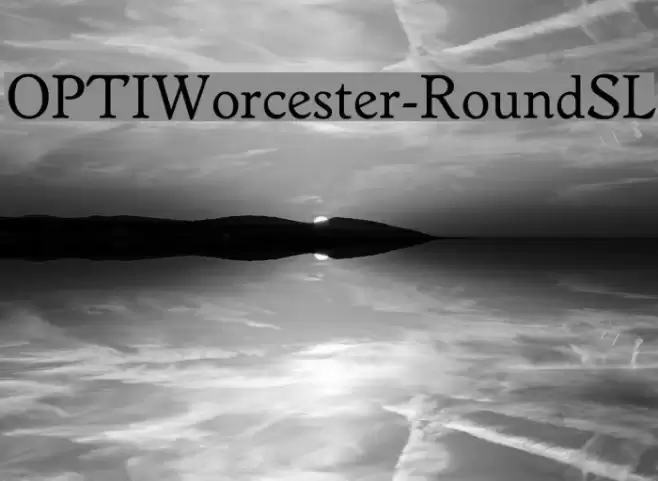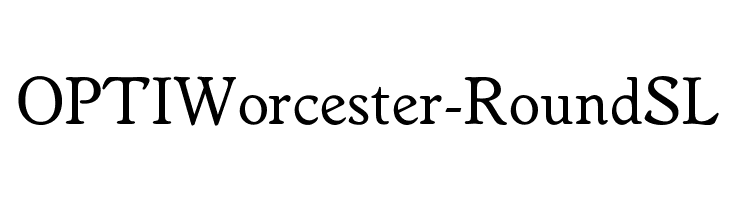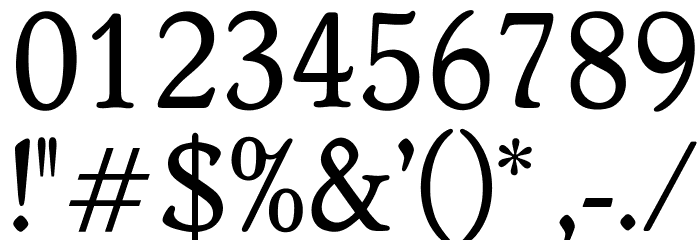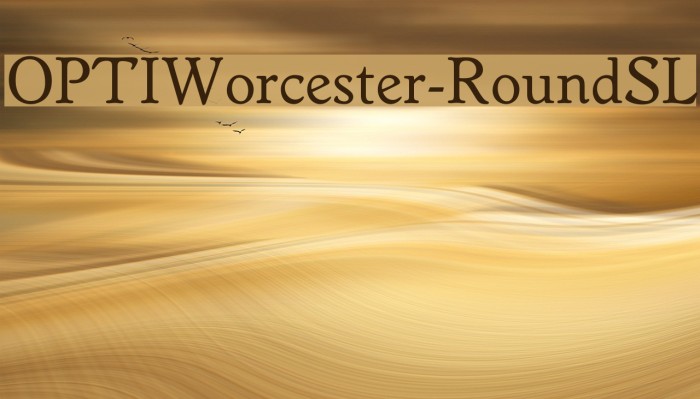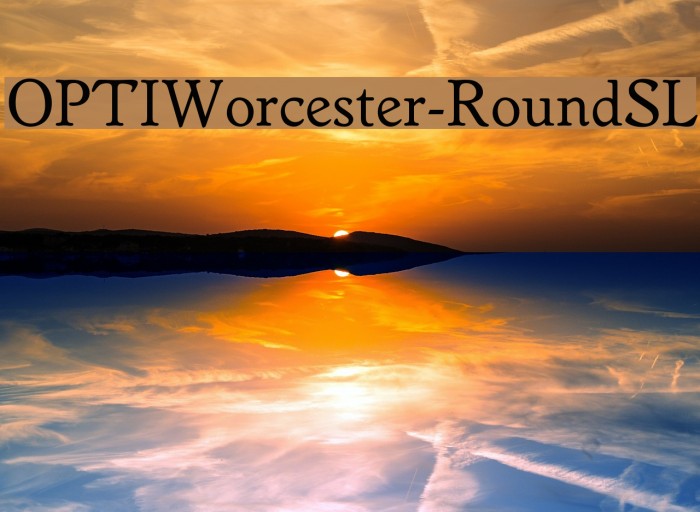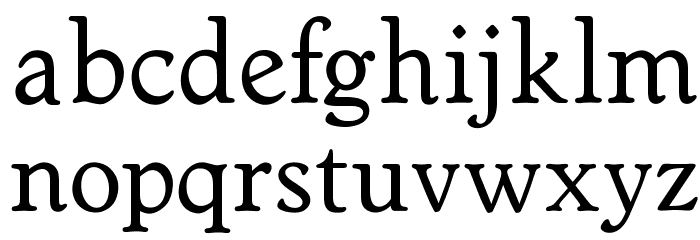
OPTIWorcester-RoundSL Font
OPTIWorcester-RoundSL Description
This font features a classic serif style with rounded edges, giving it a softer and more approachable appearance. The characters are well-proportioned, with a moderate contrast between thick and thin strokes, enhancing readability while maintaining elegance. The uppercase letters are bold and commanding, while the lowercase letters offer a more delicate and refined look. Numerals are clear and distinct, making them suitable for both text and display purposes. The special characters are designed to complement the overall style, ensuring consistency across all glyphs.
A classic serif font with rounded edges and moderate contrast, offering elegance and readability from Uncategorized fonts.
- Proposed Projects: Ideal for book covers, editorial design, branding projects, and formal invitations.
- Overall Style: Classic